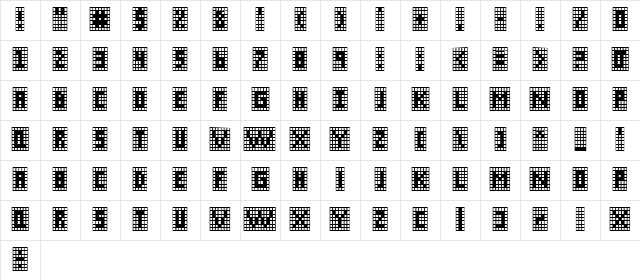
X-Grid Regular Free Font
X-Grid Regular
X-Grid Family
Design Context for X-Grid
X-Grid is a composed and adaptable typeface that performs quietly and consistently across a wide range of design contexts.